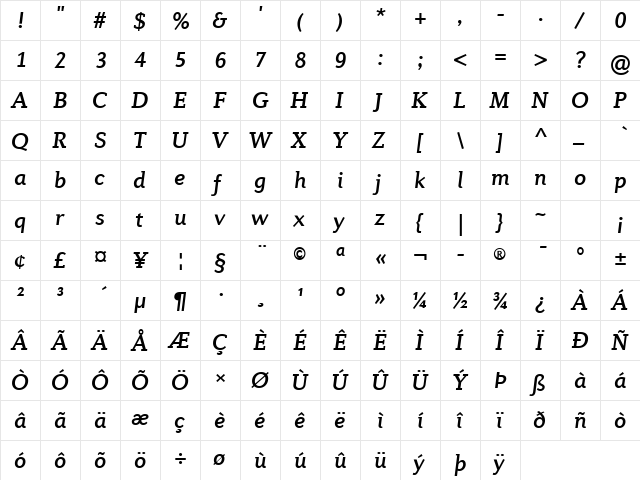
Diverda Serif Com Medium Italic
| Foundry | Linotype GmbH |
| Designer | Daniel Lanz |
Design Context for Diverda Serif Com Typeface
Diverda Serif Com brings classic typographic sensibility to the table — its serifs and measured letterforms reflect centuries of print heritage. The dynamic lean of this cut emphasises speed and emphasis in any layout.
Pro Tip: Use Diverda Serif Com for editorial body copy and considered headline work. Pair with a neutral sans for UI elements or captions to create a classic hierarchy.